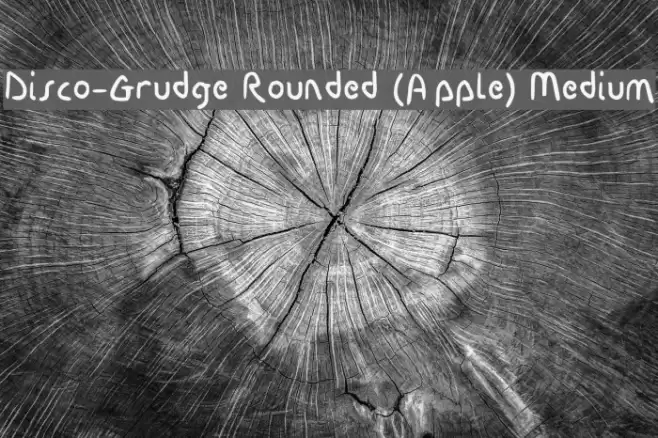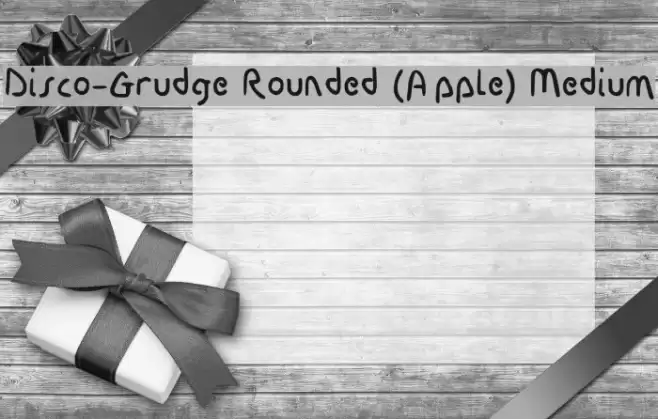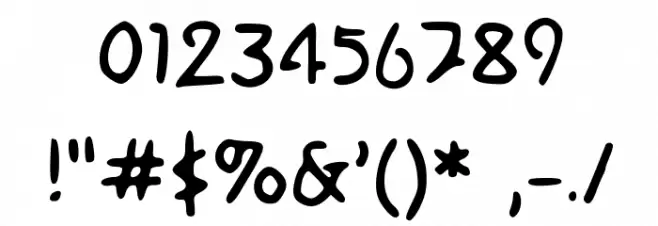
Disco-Grudge Rounded (Apple) Medium Font
Disco-Grudge Rounded (Apple) Medium Description
This font features a playful and rounded style, characterized by its smooth curves and slightly irregular shapes. The letters have a casual, hand-drawn appearance, giving them a friendly and approachable feel. The rounded edges and varying stroke widths add a dynamic and lively quality to the text. This font is versatile, suitable for projects that require a touch of whimsy or a relaxed vibe. Its unique character makes it stand out, while still maintaining readability. The numbers and special characters follow the same rounded and informal style, ensuring consistency across all text elements.
A playful, rounded font with a hand-drawn, casual style from Uncategorized fonts.
- Proposed Projects: Ideal for children's books, playful branding, casual invitations, and creative posters.
- Overall Style: Casual, Playful
- Use Case: Headlines, Logos, Informal Text